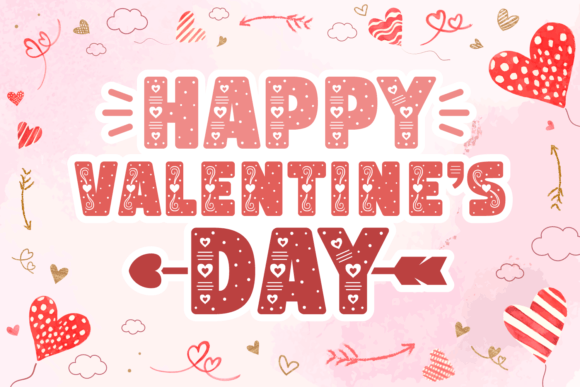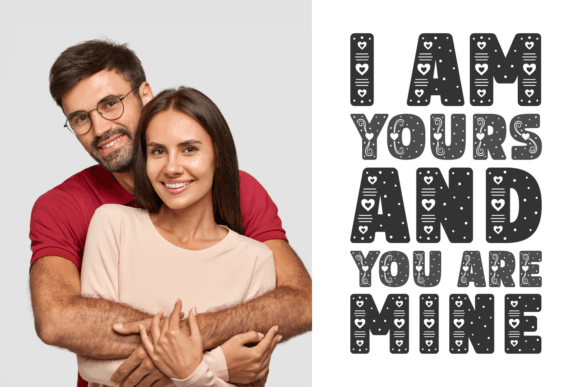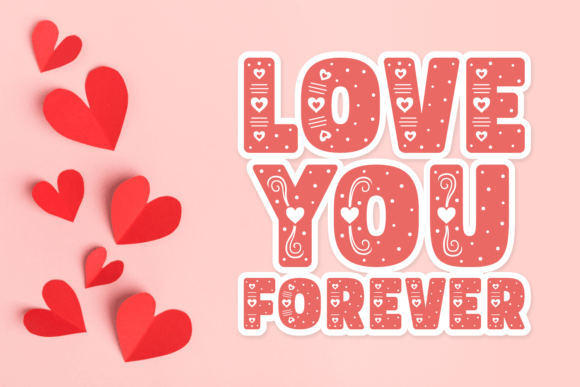
Introduction to Reason Loves Font
Reason Loves is a gentle, pure, and stylish decorative font.
This neat font has a broad spectrum of applications ranging from greeting cards to presentations and is guaranteed to increase the sense of gracefulness of your projects .
Key Features of Reason Loves Font